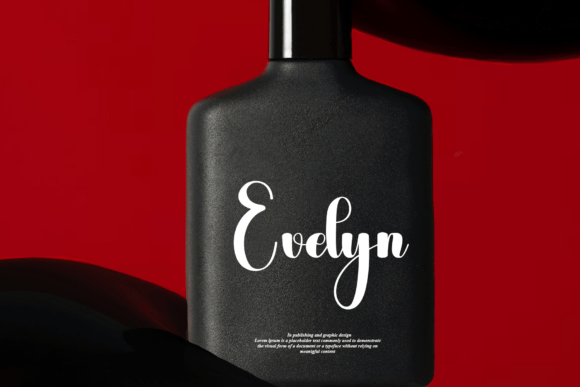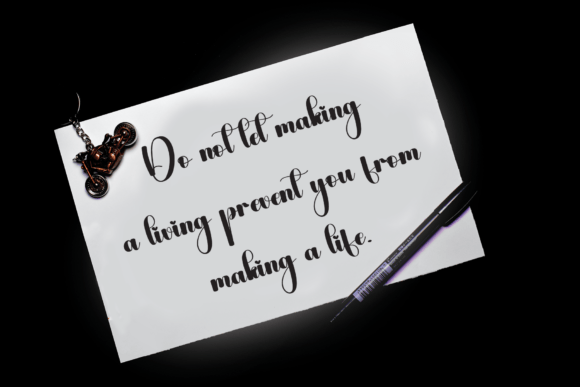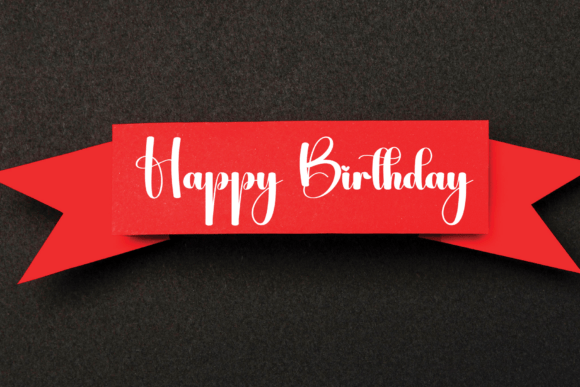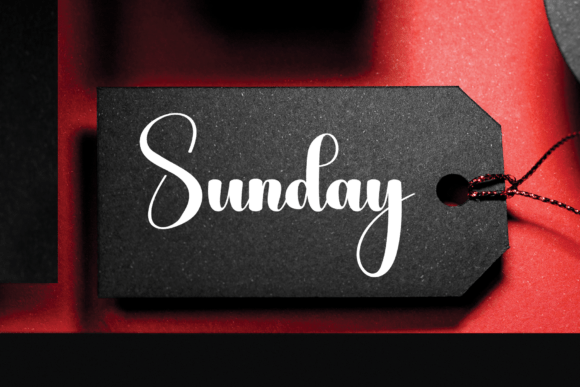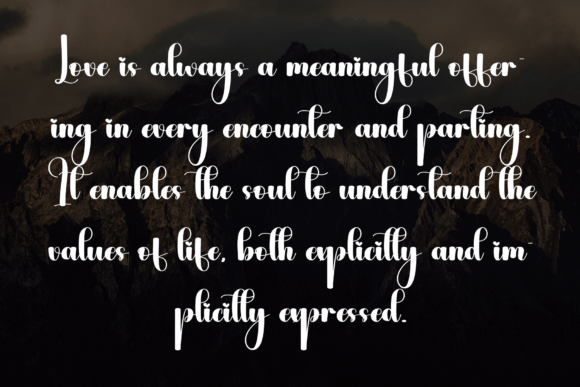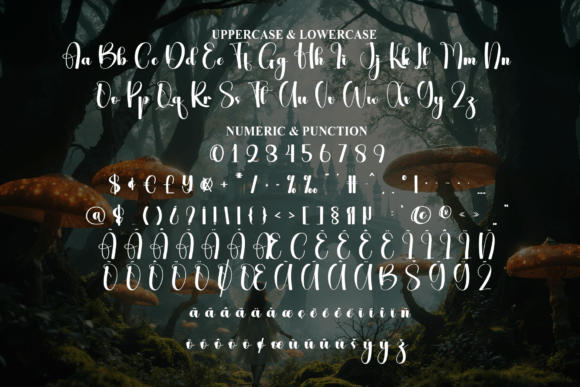
Introducing the Enchanting Font: Elevate Your Designs with Magical Typography
Are you tired of using the same old fonts for your designs? Do you want to add a touch of magic to your projects? Look no further than the Enchanting Font, a special creative product designed to give you an extraordinary experience. Our font is perfect for designers, crafters, and anyone looking to add a unique and tasteful touch to their work.
The Latest Style Letters for Your Creative Projects
The Enchanting Font features the latest style letters that are sure to impress. Whether you’re working on wall displays, wedding invitations, social media post logos, advertisements, product packaging, product designs, labels, photography, watermarks, invitations, stationery, or any other project that requires tasteful handwriting, our font has got you covered.
- Encoded PUA Character: Our font features encoded PUA characters, allowing you to access all characters completely without needing additional design software.
Unlock Endless Creative Possibilities
With the Enchanting Font, the creative possibilities are endless. Use it to:
- Create stunning wall displays and signage that grab attention.
- Design beautiful wedding invitations and stationery that set the tone for a special day.
- Elevate your social media posts with eye-catching logos and typography.
- Craft compelling advertisements and marketing materials that drive results.
- Develop unique product packaging and branding that stands out.
- Add a personal touch to your product designs, labels, and photography.
Why Choose the Enchanting Font?
So, why choose the Enchanting Font over other fonts on the market? Here are just a few reasons:
- Unique and exclusive design: Our font features a one-of-a-kind design that’s sure to impress.
- High-quality and versatile: Suitable for a wide range of projects and applications.
Get Ready to Fall in Love with the Enchanting Font
If you’re looking for a font that will take your designs to the next level, look no further than the Enchanting Font. With its magical and enchanting style, this font is sure to captivate your audience and leave a lasting impression. So why wait? Get your hands on the Enchanting Font today and experience the magic for yourself!